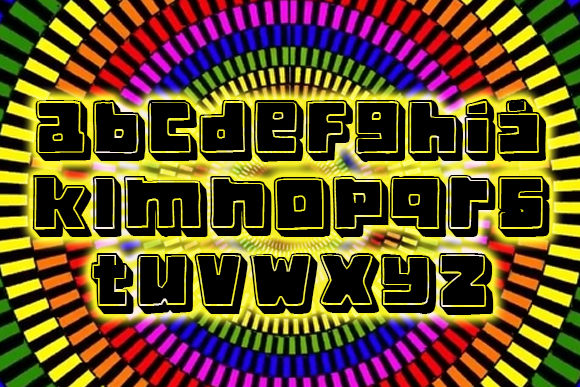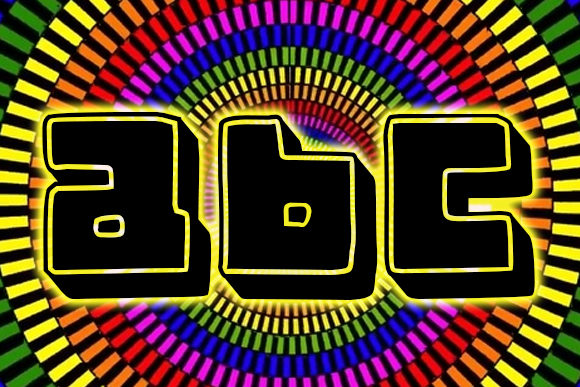
Crazy Font: The Ultimate Display Font for Creative Minds
In the world of typography, fonts play a crucial role in conveying messages, expressing emotions, and creating visual identities. Among the numerous fonts available, one font that stands out for its bold and interesting design is the Crazy Font. This display font has gained popularity among designers and crafters due to its friendly feel and versatility. In this article, we’ll explore the features, benefits, and uses of the Crazy Font, and how it can elevate your creative projects.
What is Crazy Font?
Crazy Font is a bold and eye-catching display font designed to make a statement. Its unique and quirky design makes it perfect for creative projects that require a touch of personality. The font’s friendly feel sets it apart from other display fonts, making it suitable for a wide range of contexts, from playful and casual to professional and formal.
Key Features of Crazy Font
- Bold and Interesting Design: Crazy Font boasts a bold and attention-grabbing design that is sure to make your creative projects stand out.
- Versatility: The font’s friendly feel makes it incredibly versatile, fitting a wide range of contexts and applications.
- Easy to Read: Despite its bold design, Crazy Font is easy to read, making it perfect for headlines, titles, and short paragraphs.
- High-Quality Design: The font is designed with high-quality craftsmanship, ensuring that it looks great in various sizes and resolutions.
Benefits of Using Crazy Font
So, why should you choose Crazy Font for your creative projects? Here are some benefits that make it an excellent choice:
- Adds Personality to Your Designs: Crazy Font adds a touch of personality to your designs, making them more engaging and memorable.
- Enhances Visual Appeal: The font’s bold and interesting design enhances the visual appeal of your creative projects, making them more attractive to your audience.
- Perfect for Creative Projects: Crazy Font is perfect for creative projects, such as posters, flyers, brochures, and social media graphics.
Use Cases for Crazy Font
Crazy Font is an incredibly versatile font that can be used in various contexts. Here are some use cases to inspire your creativity:
- Posters and Flyers: Use Crazy Font to create eye-catching posters and flyers that grab attention.
- Social Media Graphics: Add Crazy Font to your social media graphics, such as Facebook posts, Instagram stories, and Twitter headers.
- Logos and Branding: Use Crazy Font to create unique and memorable logos and branding materials.
- Packaging Design: Add Crazy Font to your packaging design to make your products stand out on store shelves.
Tips for Using Crazy Font Effectively
To get the most out of Crazy Font, here are some tips to keep in mind:
- Use it Sparingly: Use Crazy Font sparingly to avoid overwhelming your audience.
- Pair it with Other Fonts: Pair Crazy Font with other fonts to create visual interest and contrast.
- Experiment with Colors: Experiment with different colors to find the perfect combination that matches your brand’s identity.
Crazy Font is a bold and interesting display font that can elevate your creative projects. Its friendly feel makes it incredibly versatile, fitting a wide range of contexts and applications. With its key features, benefits, and use cases, Crazy Font is an excellent choice for designers and crafters looking to add a touch of personality to their designs. So, add Crazy Font to your creative arsenal and notice how it makes your projects stand out!